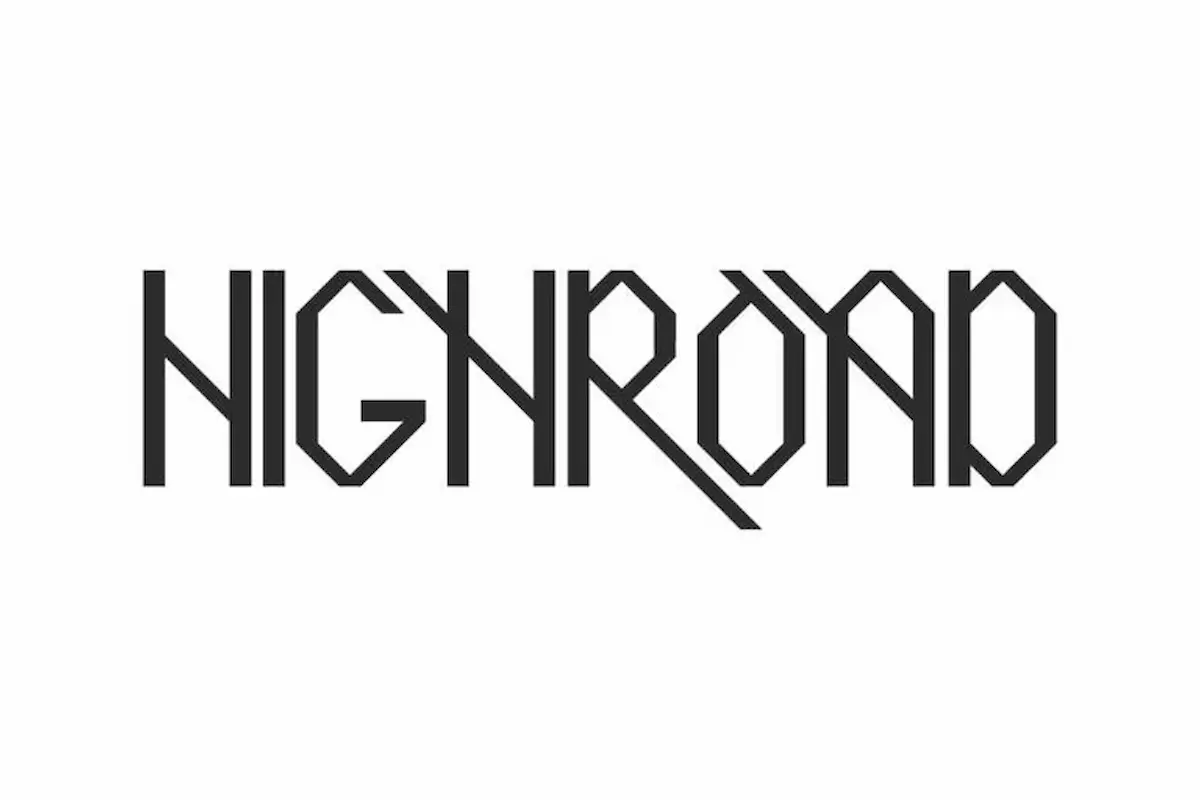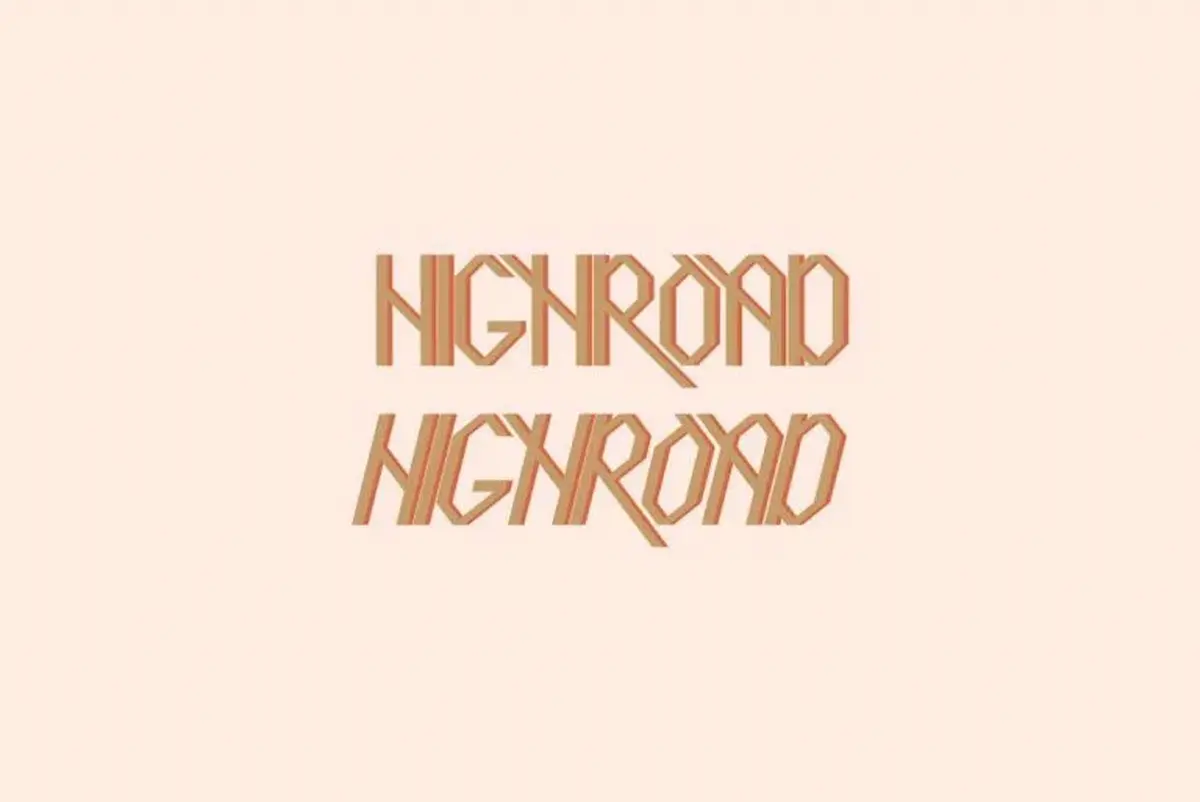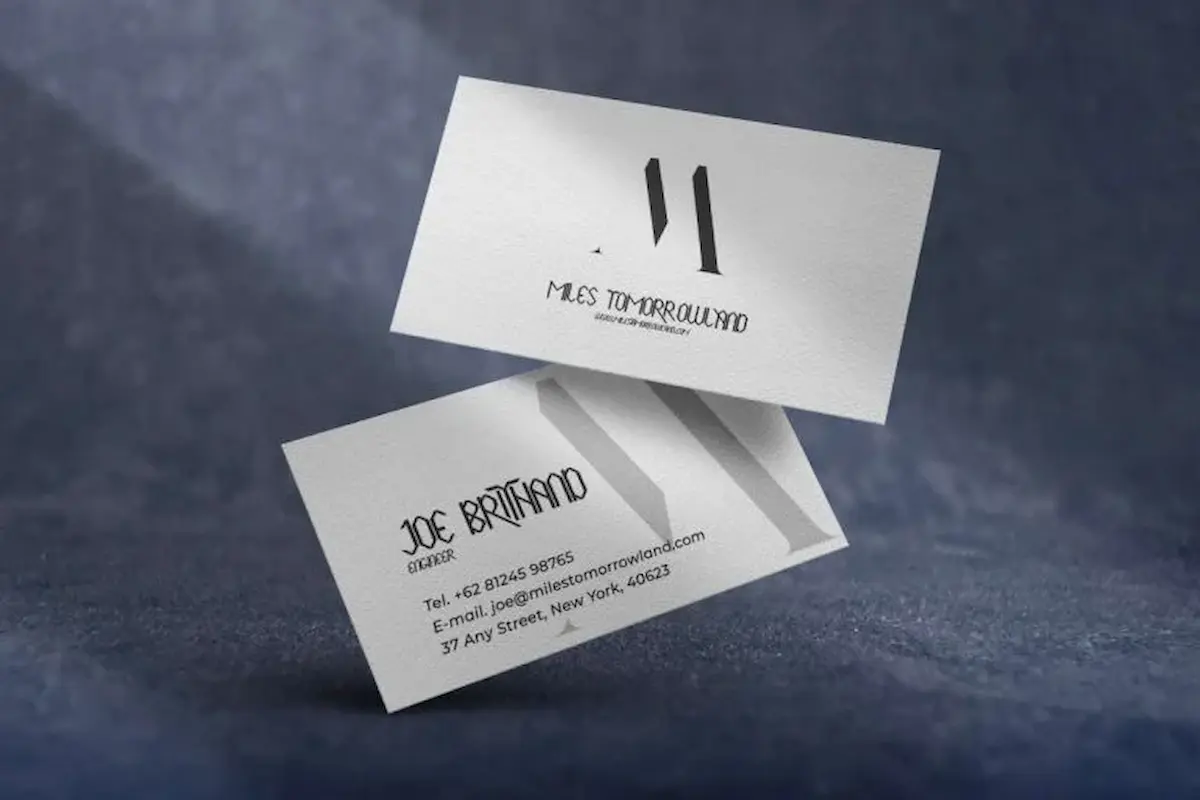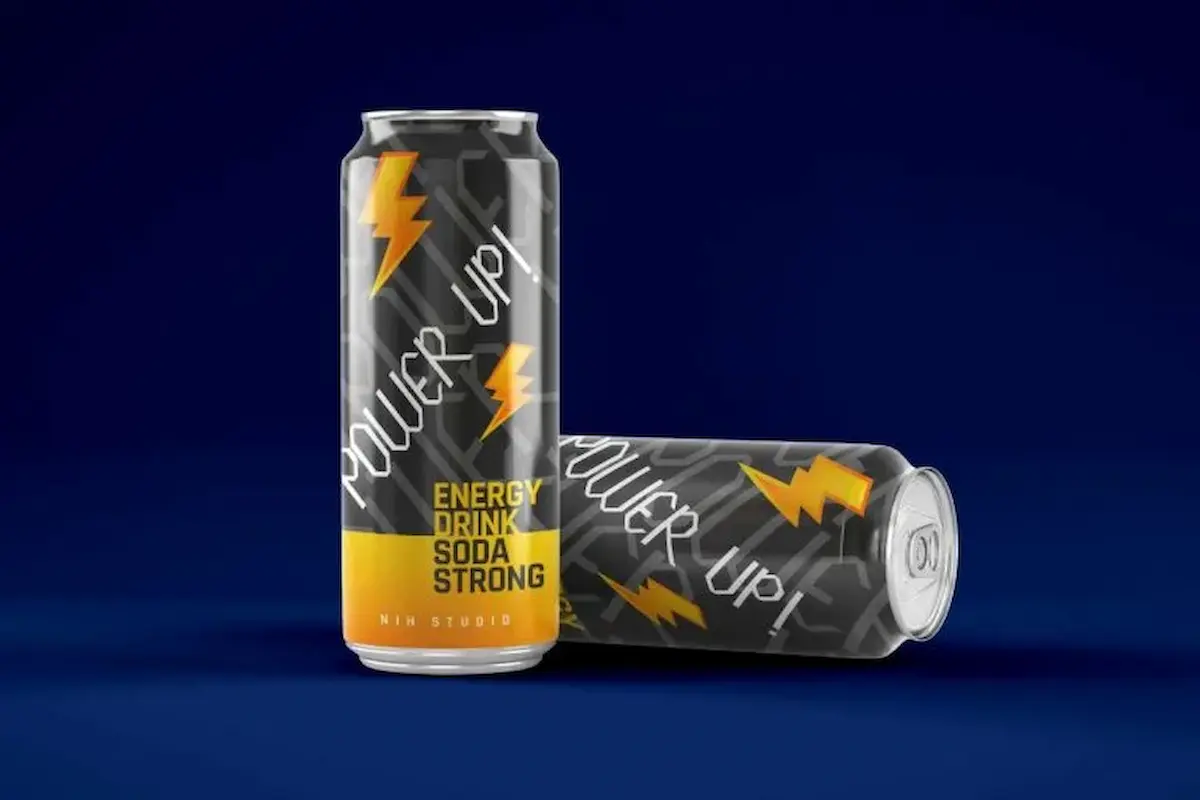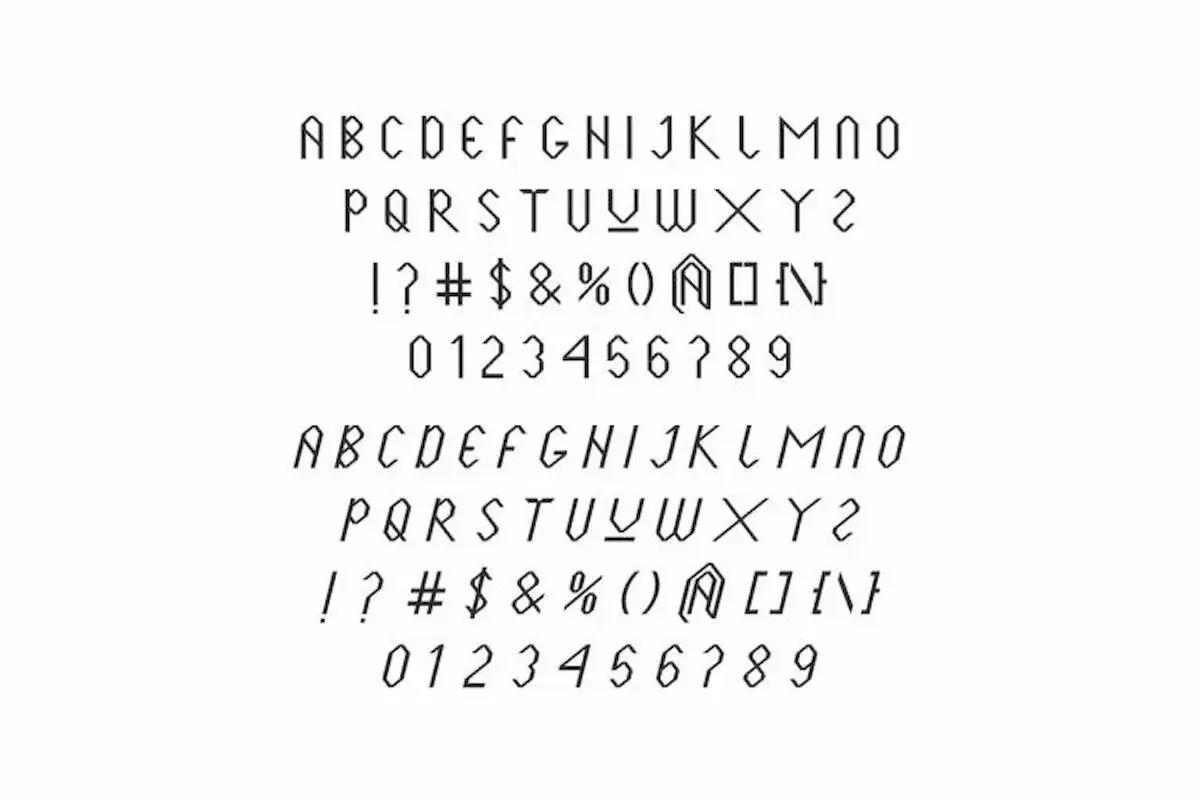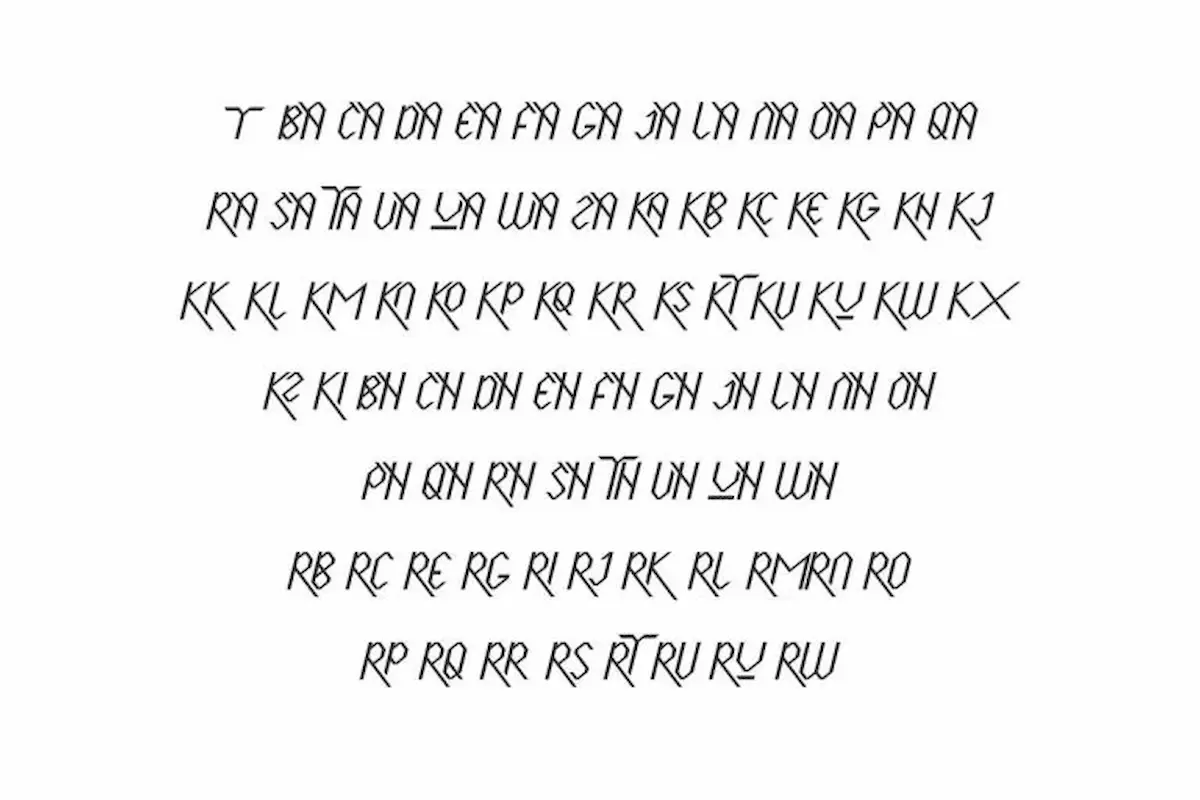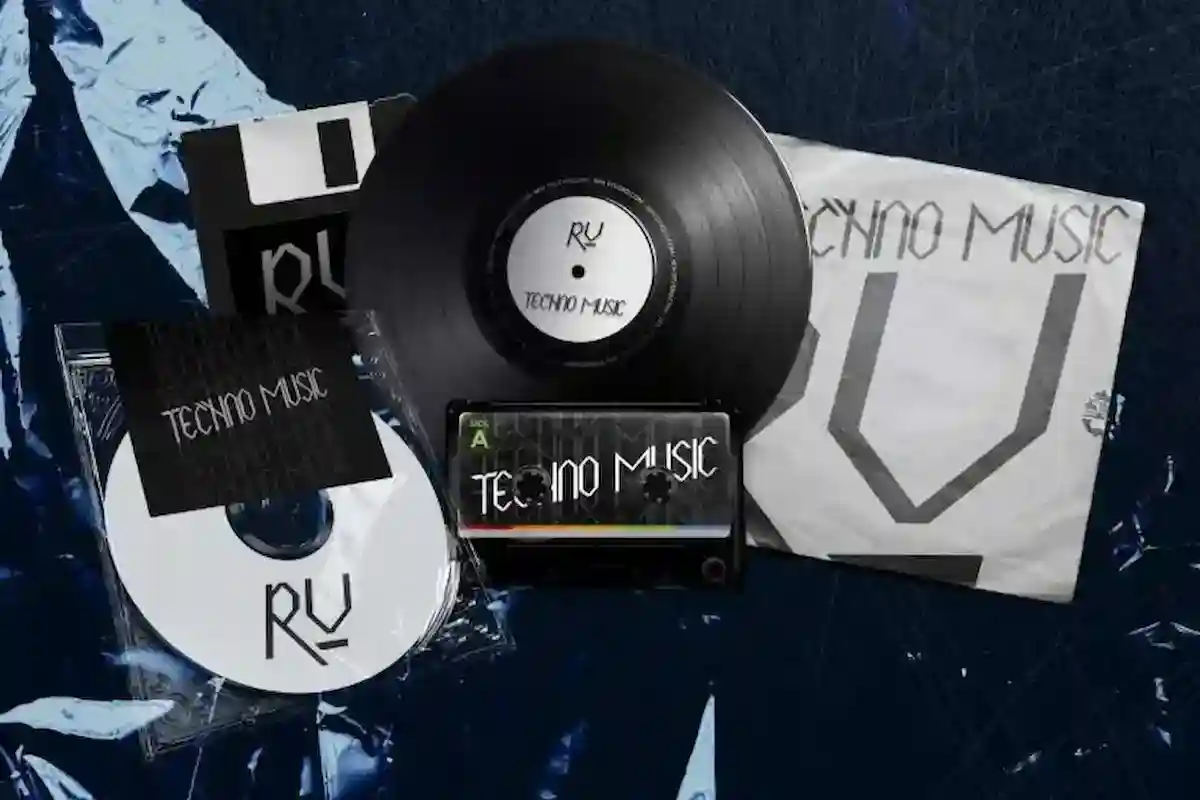
Highroad Font is a unique display font by NihStudio, made in 2021. Highroad Font will great for many industries : Movies, fashion, music, gothic or others projects.
Highroad Font will be great for any projects (require extended license) including : branding, logo, stationery, business card, signage, flyer, brochure etc. Highroad Font comes with two styles: Regular and Italic. The font als many ligatures to make it unique and stunning. Highroad Font will be great for many business and industries including movies, games, festival, events etc